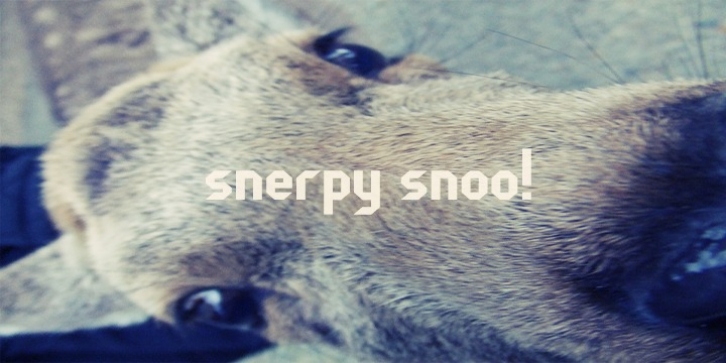
Fragile Bombers downloadDesigner: Ray Larabie
Publisher: Typodermic
Fragile Bombers is a sharp, militaristic display font with a sly robotic balance. It’s modular but not really.